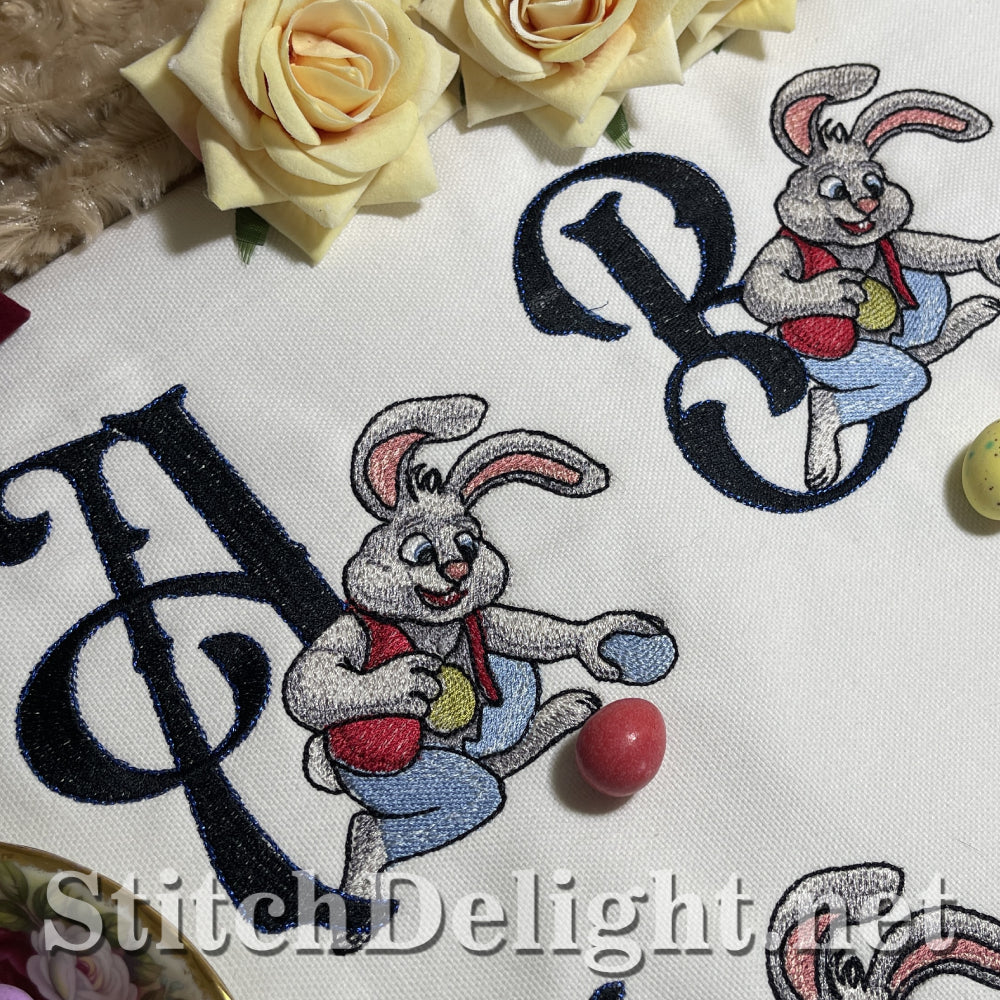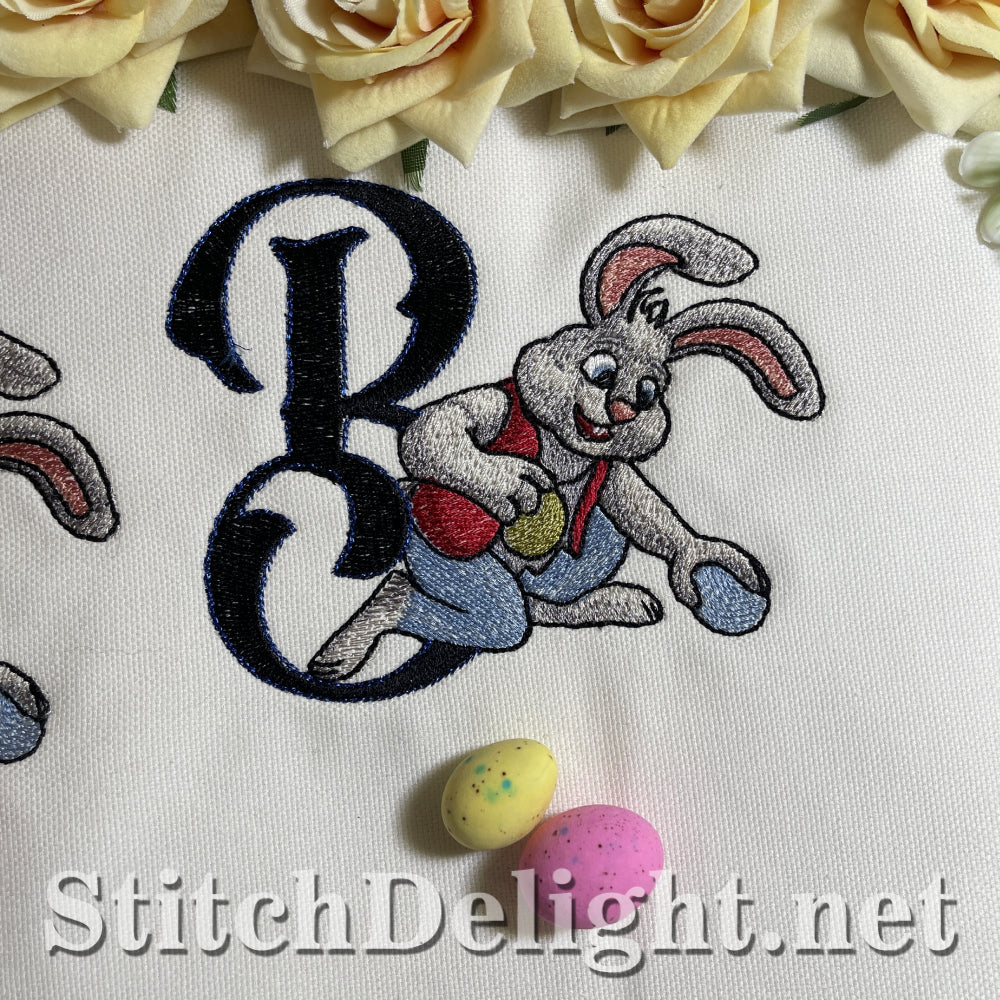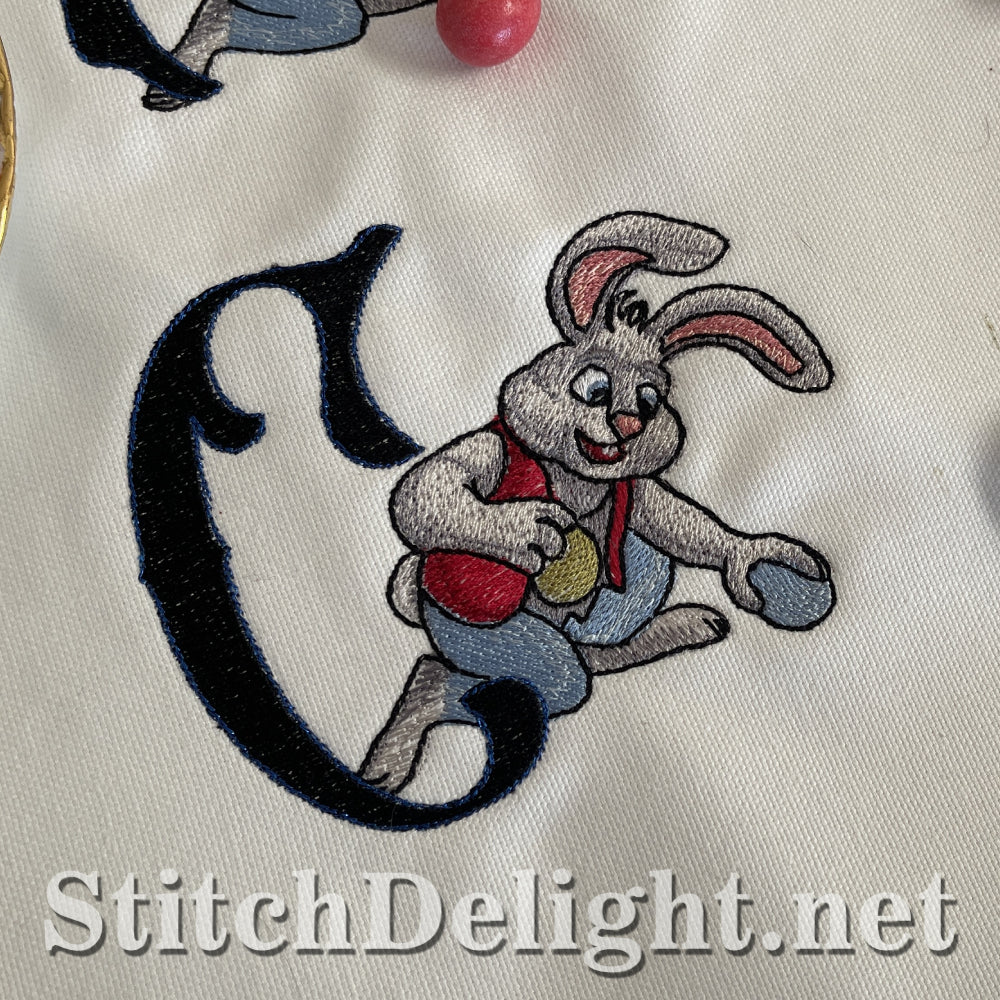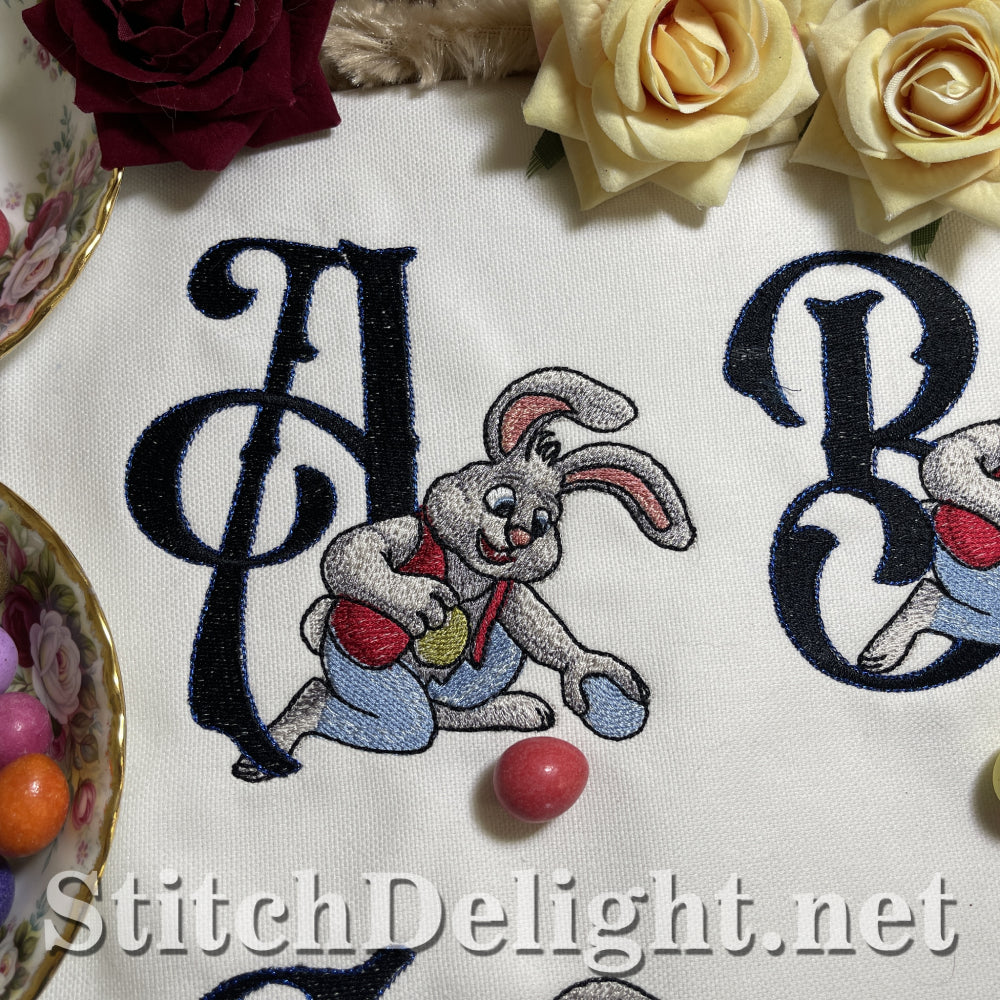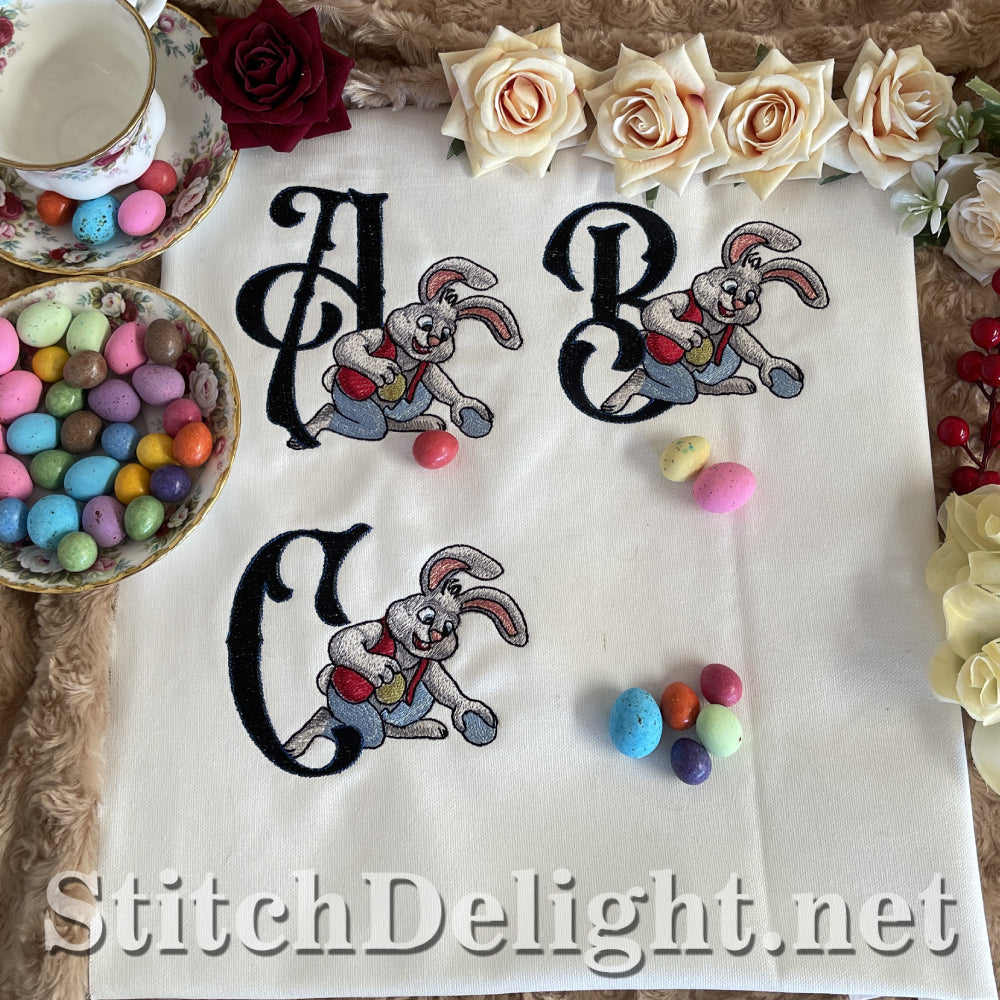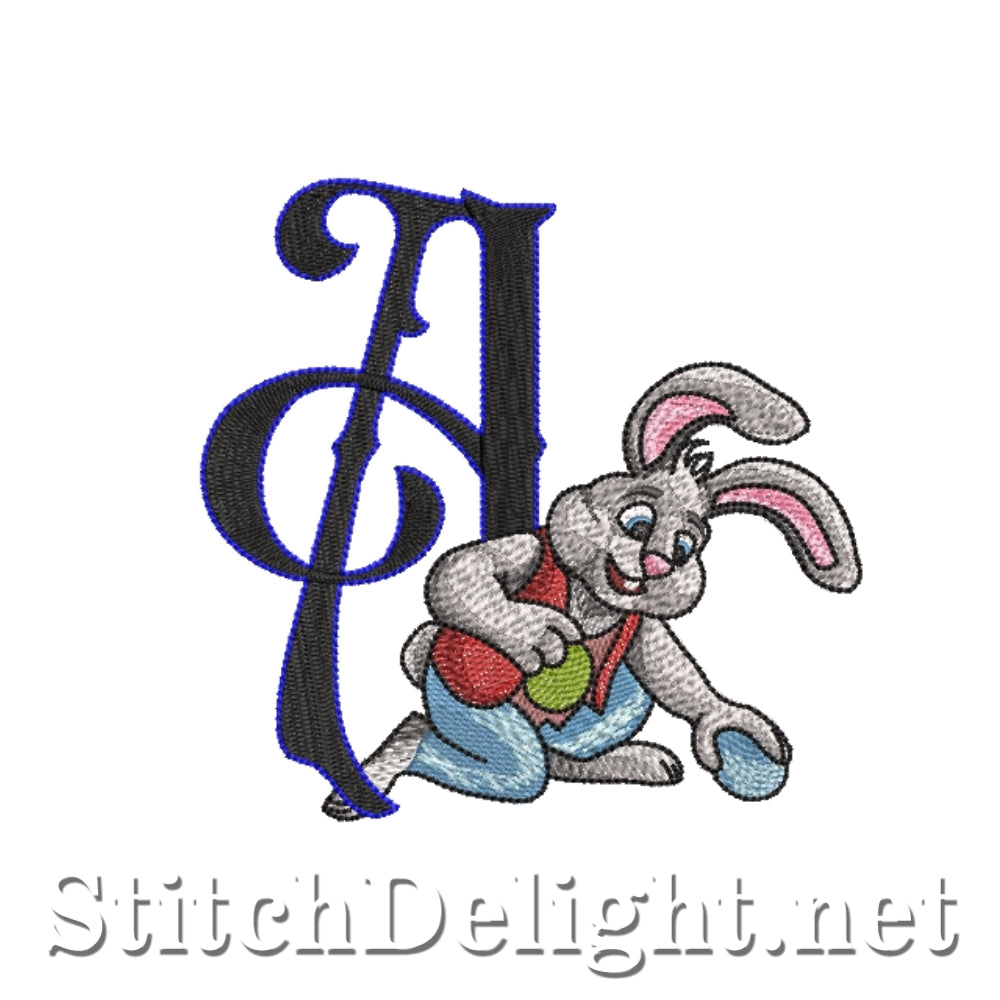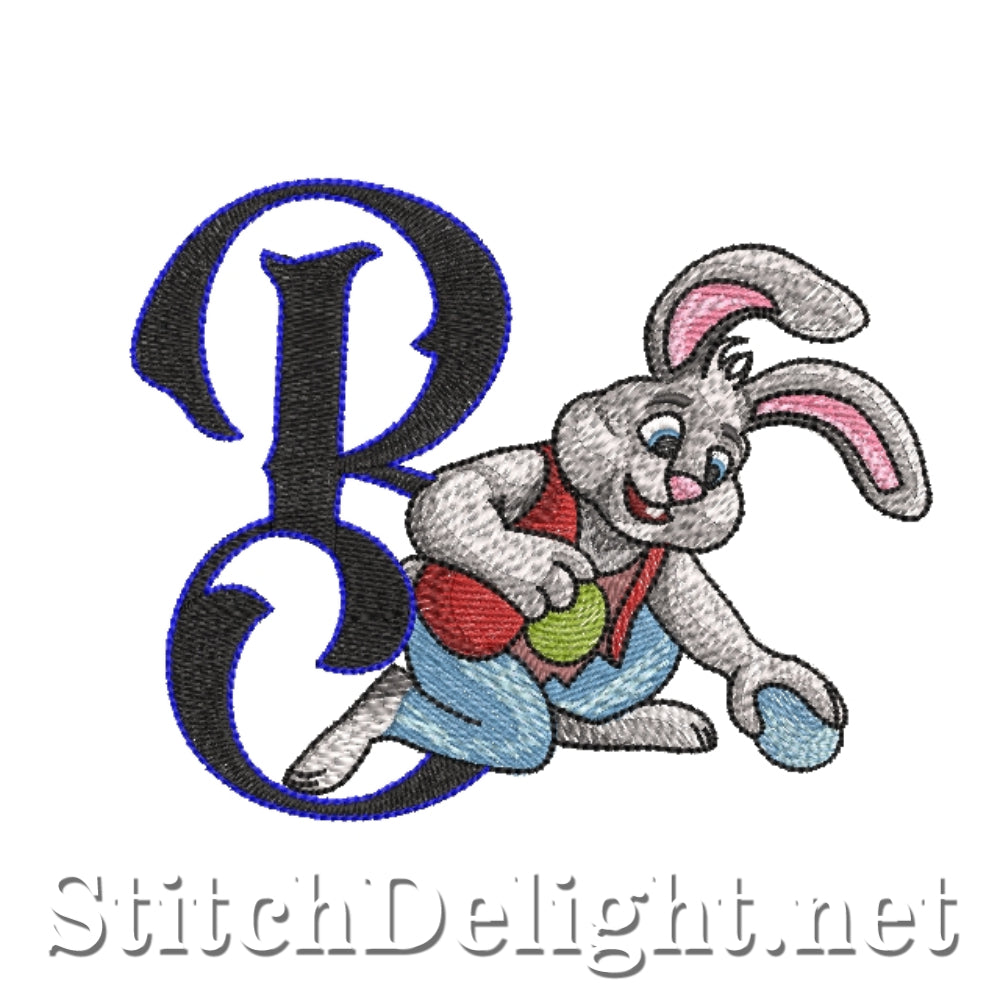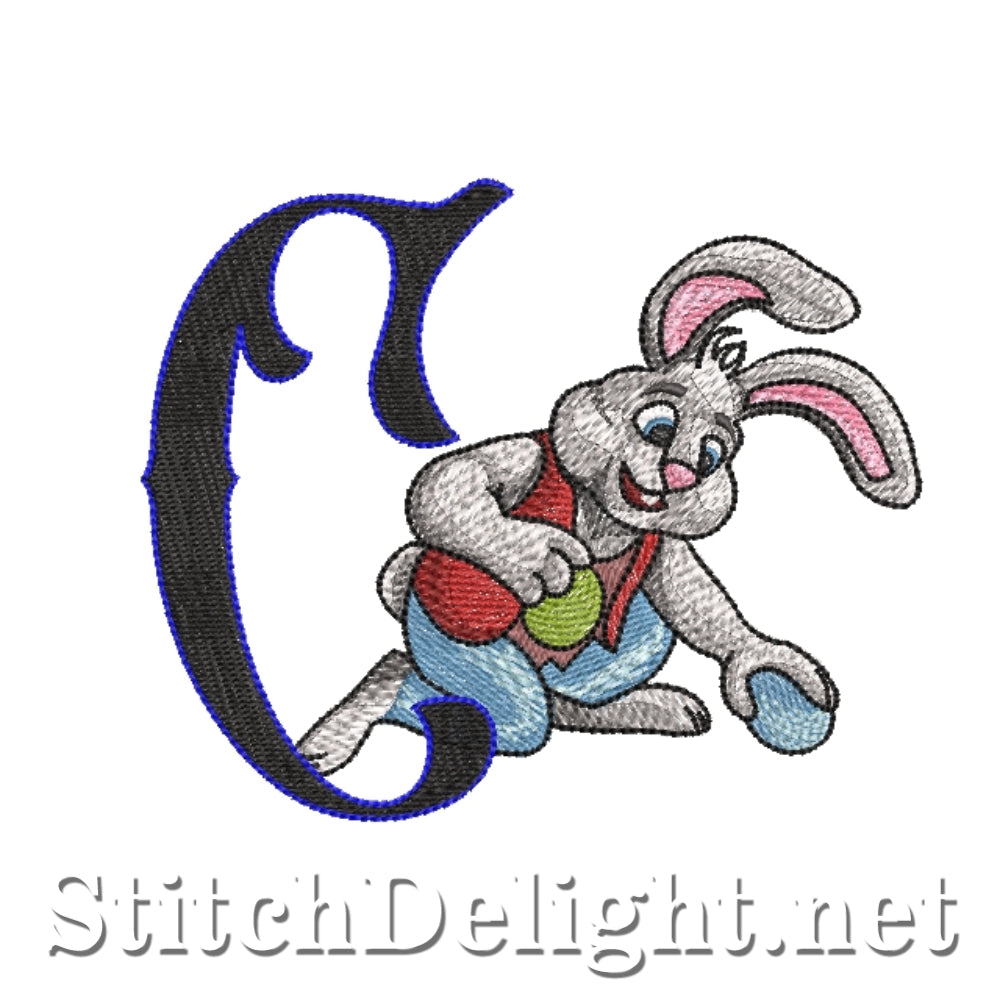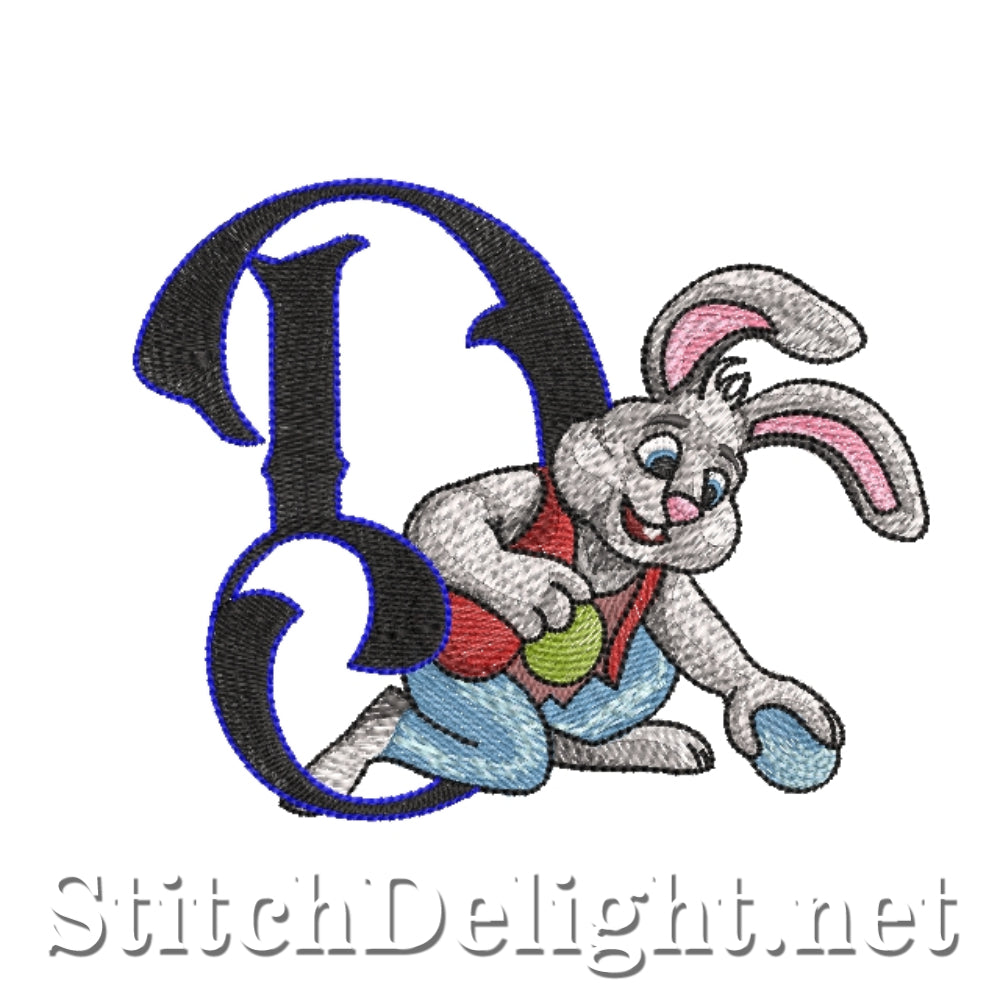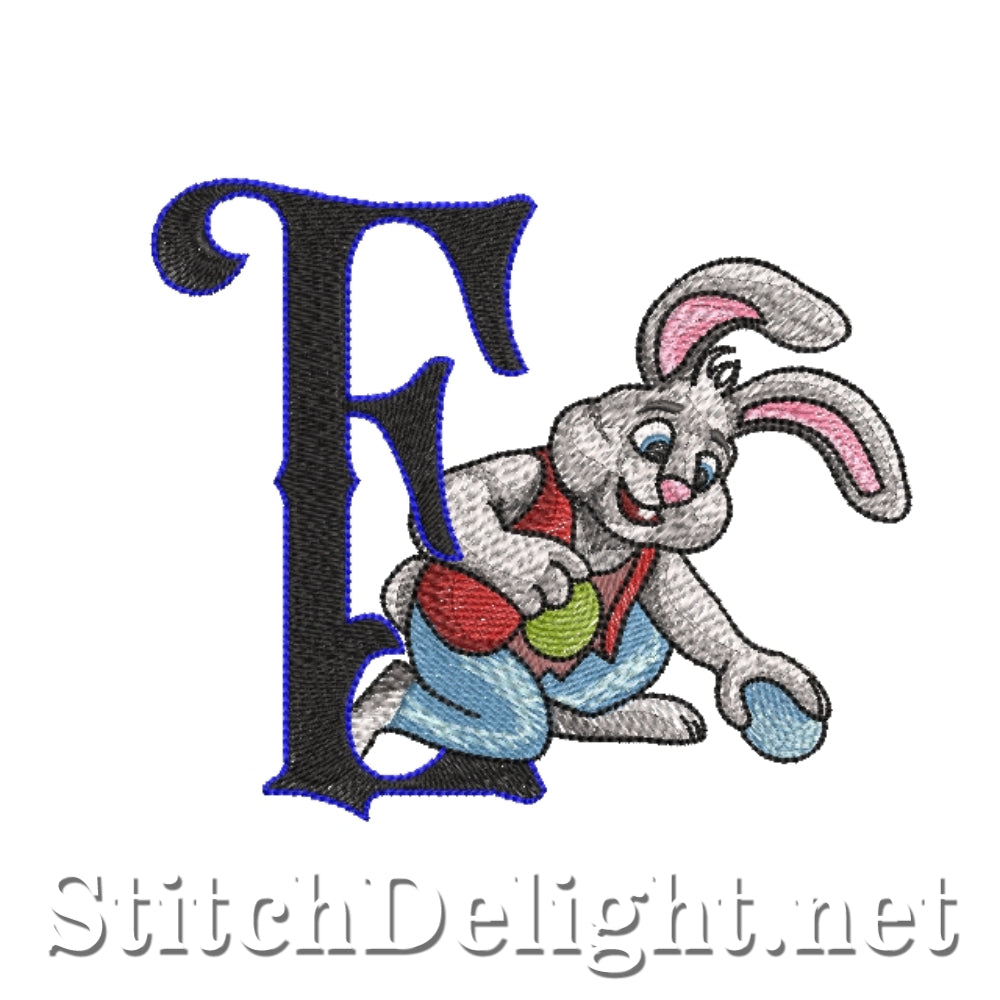
Make this Easter holiday special with a unique font that captures the joy of the season.
See the Easter Bunny hiding eggs at each letter as you stitch out this festive font, it is ideal for educational activities or creative projects. The matching (SDS3319) is a dynamic font which allows you to toggle the Easter egg on/off by using the shift key on your keyboard.
Use it to design personalized tote bags for kids, perfect for carrying their treasures during an Easter egg hunt. Measuring approximately 3.92" in height and 4.9" in width, this font requires a 5x7" hoop.